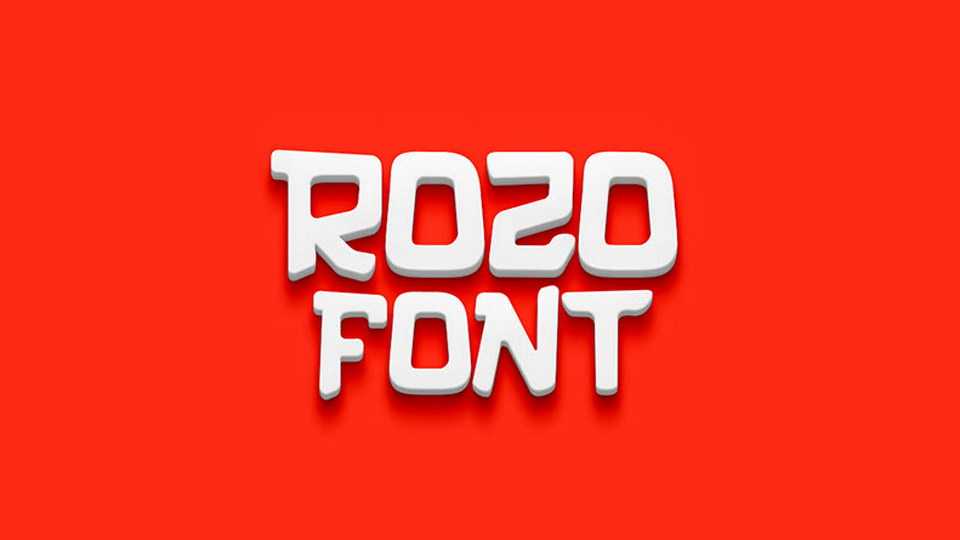
Download Rozo typeface, a cool display font family in three styles with fun and free look. Rozo font perfectly fits for logos, badges, headlines, posters, signage, branding and much more.